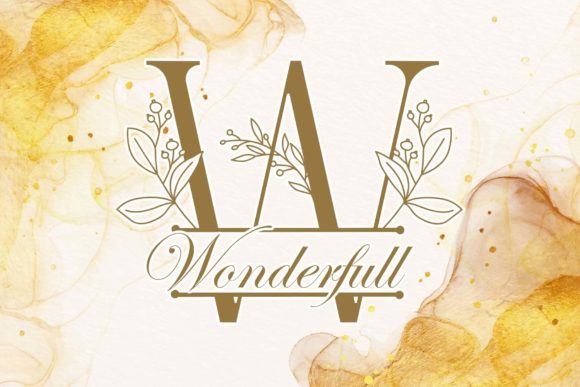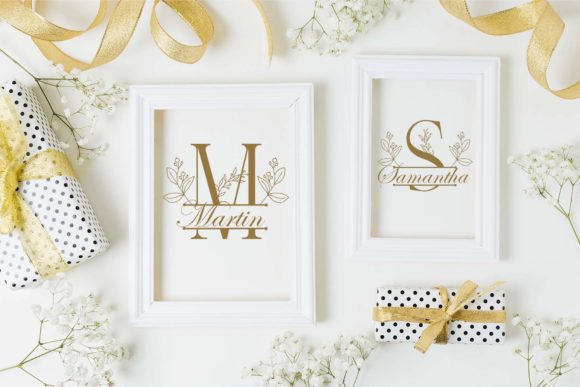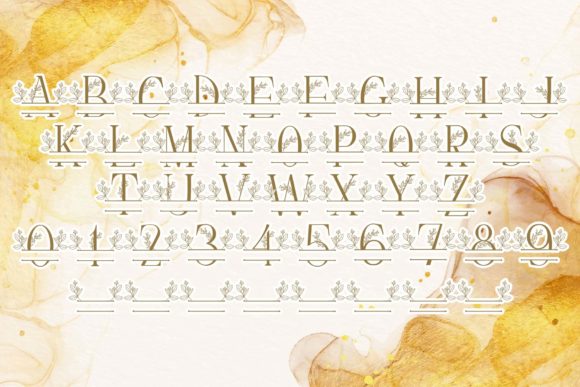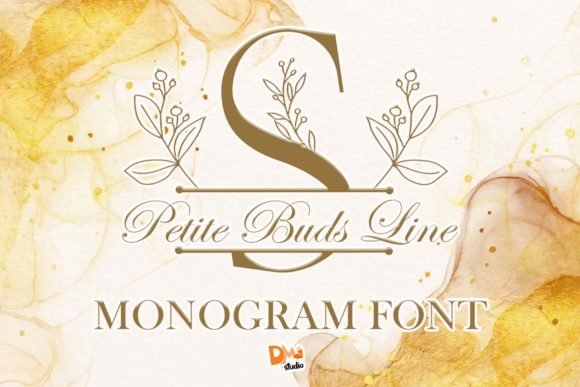
Introduction to Petite Buds Line Monogram Font
Petite Buds Line Monogram is a highly detailed and beautiful decorative font.
Add this lovely-looking font to each of your love letters, wedding invitations, or favorite design ideas, and you will be astounded by the outcome .
Petite Buds Line Monogram Font offers exceptional quality and versatility, making it a valuable addition to your design toolkit. Whether you’re creating for personal projects or commercial use, Petite Buds Line Monogram Font delivers professional results.